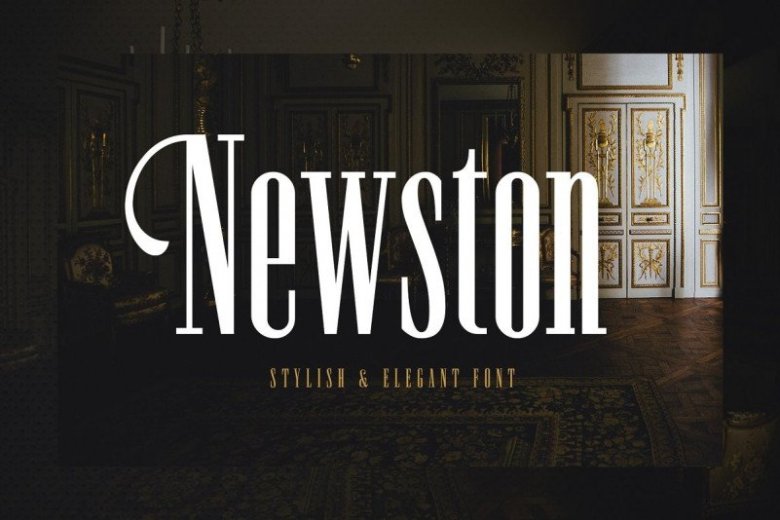
Newston Slab Serif Font
Newston Slab Serif Font is a geometric slab serif typeface based on the bestselling font Isidora and inspired by early 20th century famous classic slab-serif typefaces. Beautiful and playfully with 4 styles available. Made with medium contrast of the strokes that allow you to create more than headline. The spacing adjusted a bit tight that possible to fill empty space on your modern or typographic design.